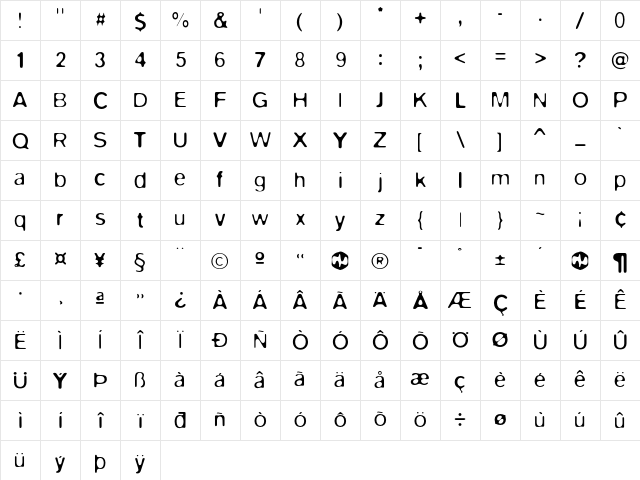
BlurLight Light Free Font
BlurLight Light
Foundry: Copr. Neville Brody & The Font Bureau ; FontShop International
Design Context for BlurLight
BlurLight is a composed and adaptable typeface that performs quietly and consistently across a wide range of design contexts. Its slender proportions lend an understated elegance to any composition.
Who designed the BlurLight Light font?
This font was published by Copr. Neville Brody & The Font Bureau ; FontShop International. Check the technical specs section for copyright and designer details.